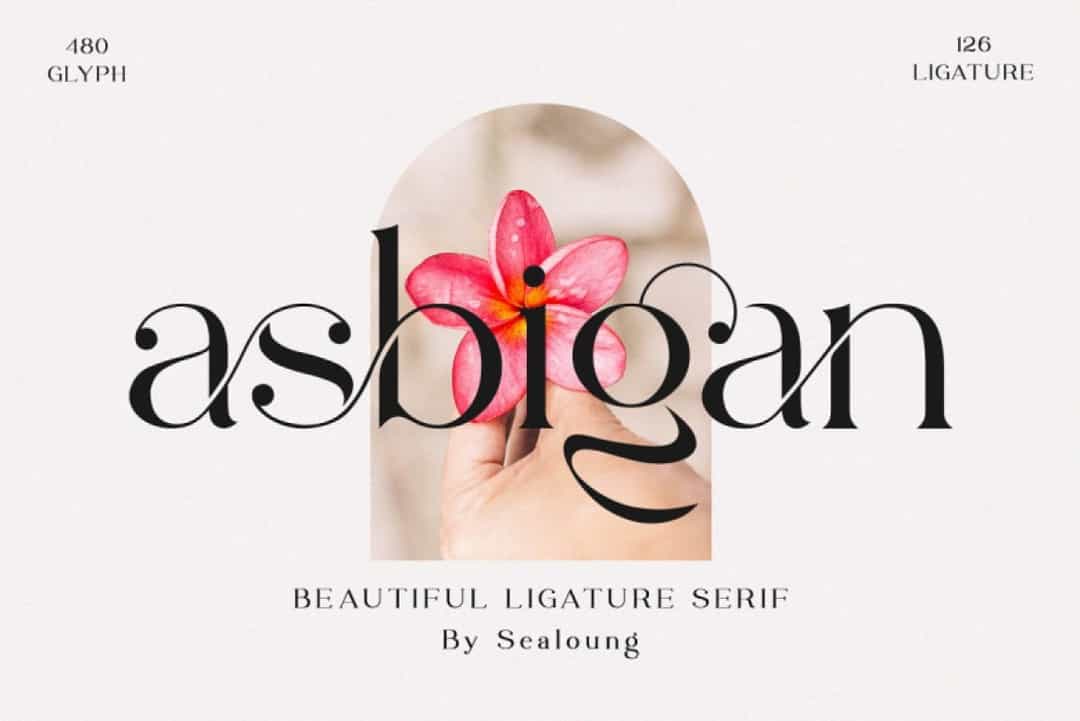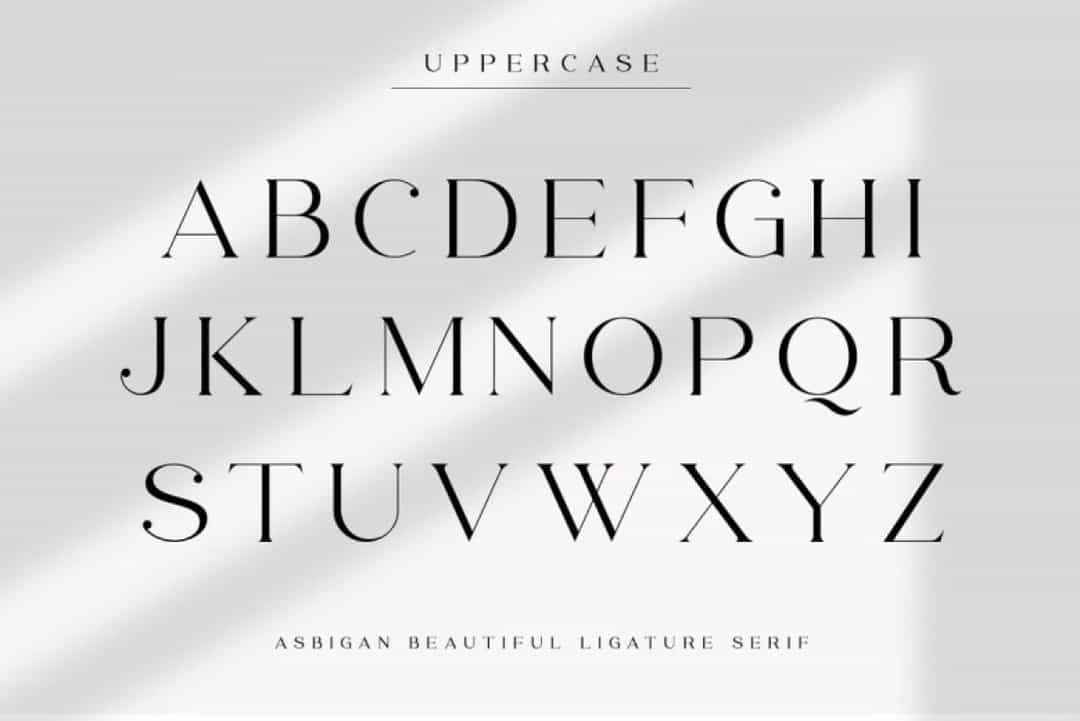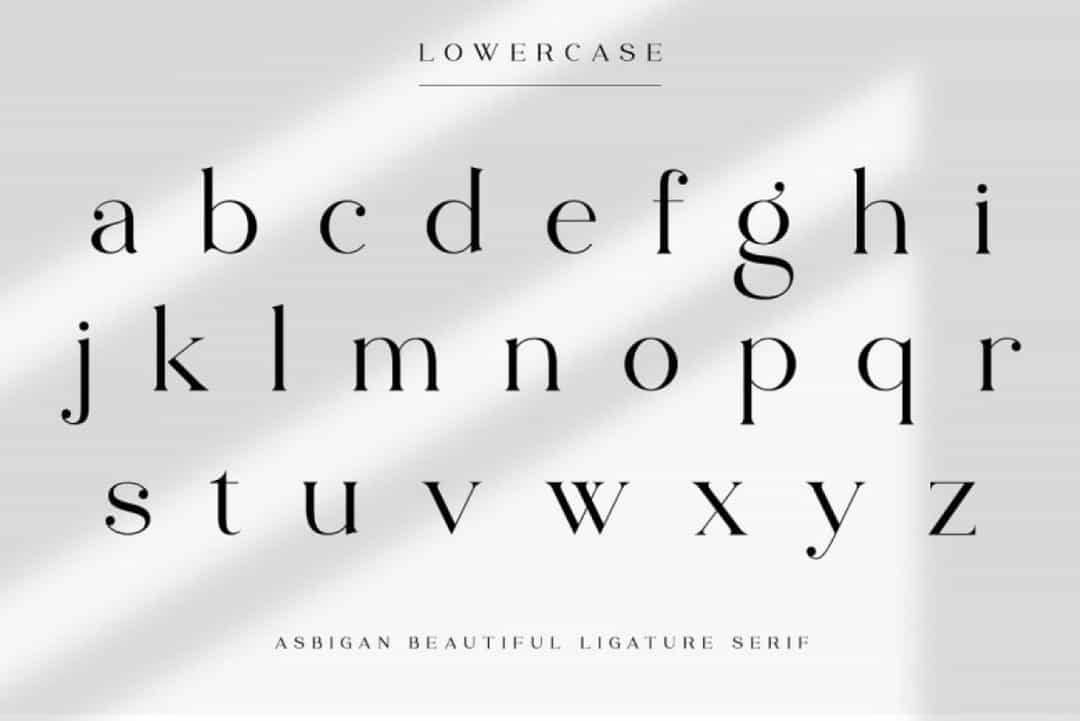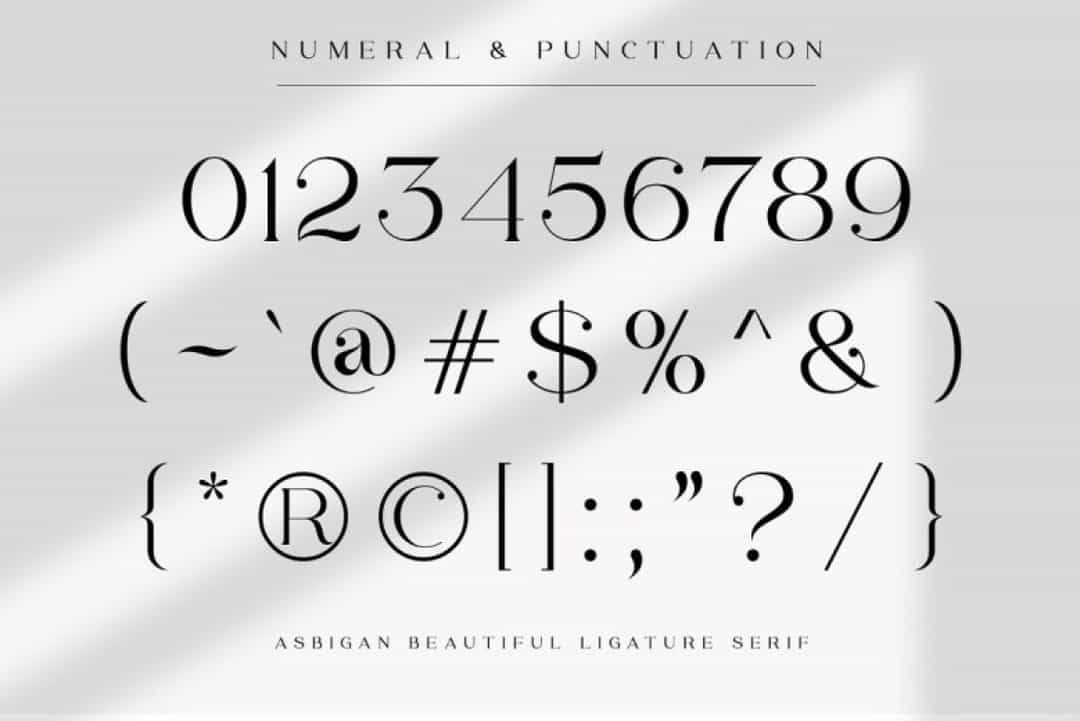
Asbigan is an elegant font that makes a striking impression when applied to logo and brand design. From our experience as graphic designers working for numerous companies, this font often allows us to craft logos with originality yet an understated elegance that stand out from the pack.